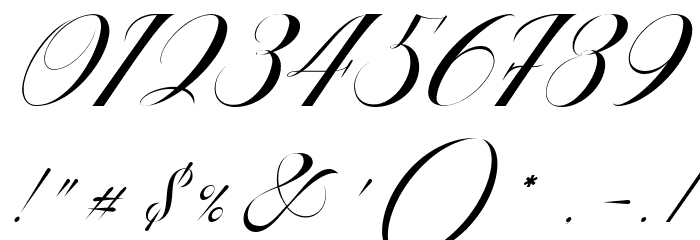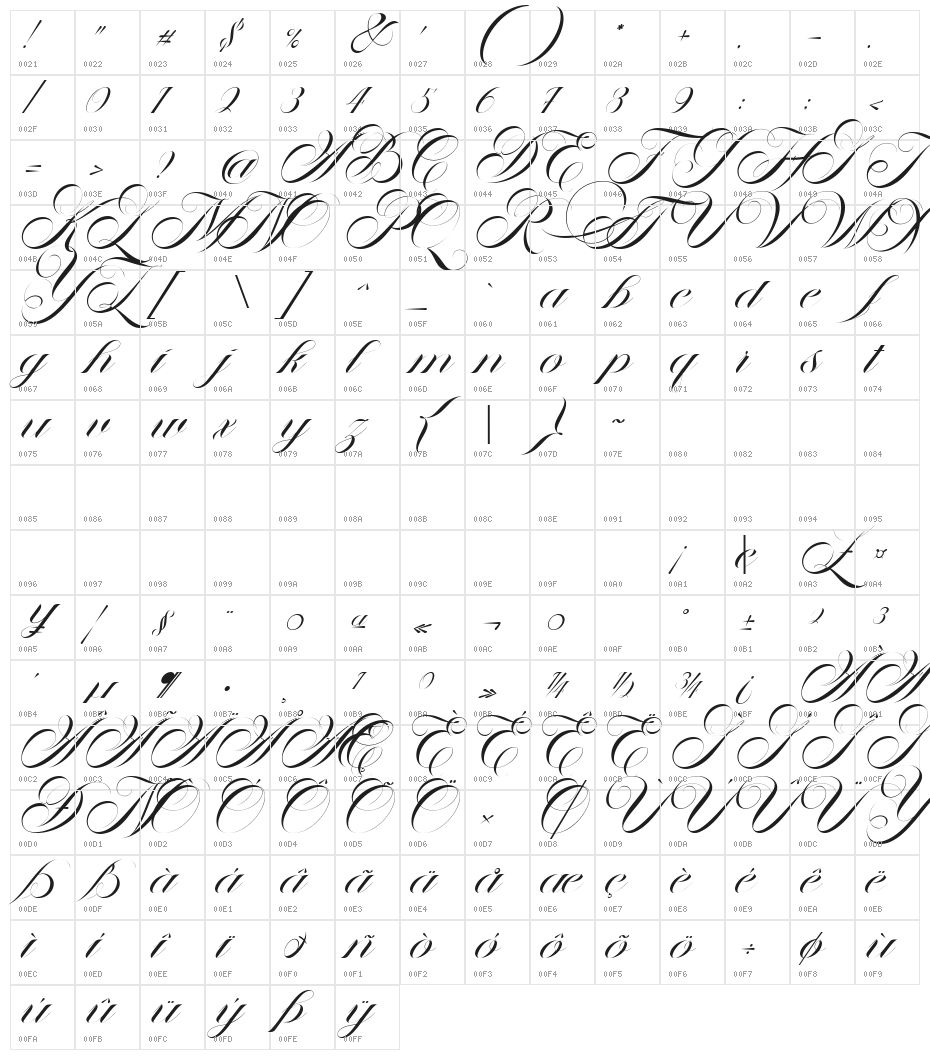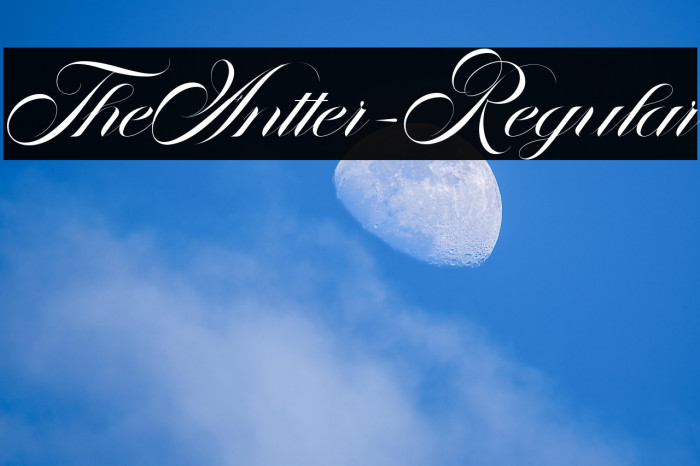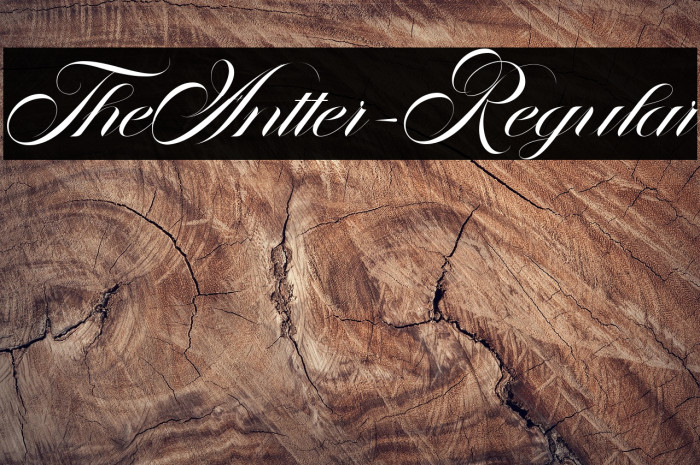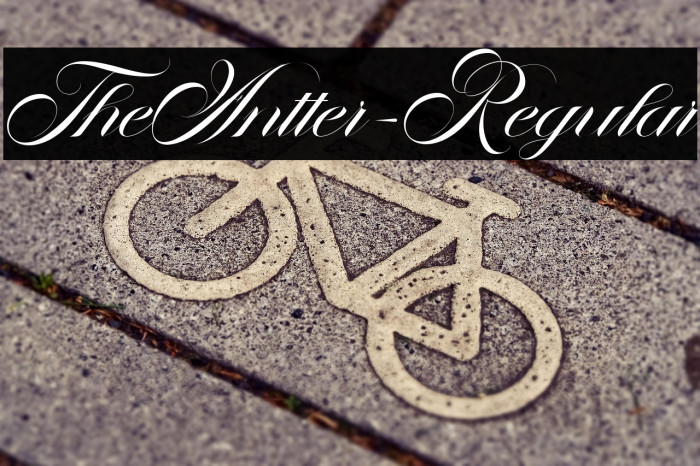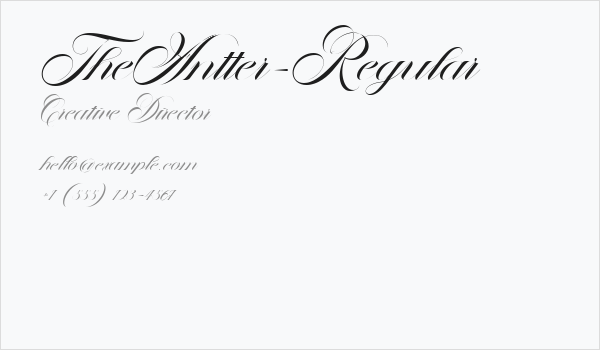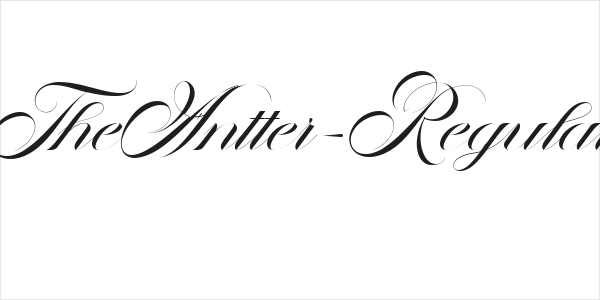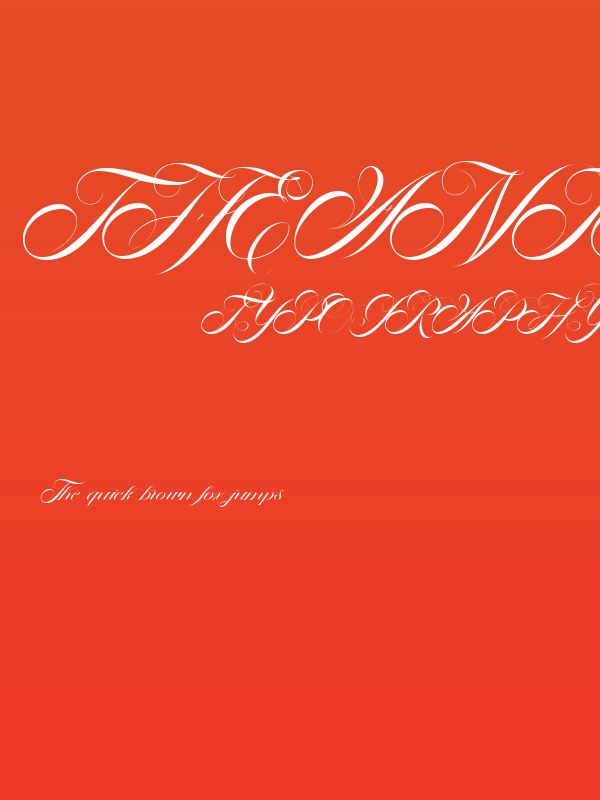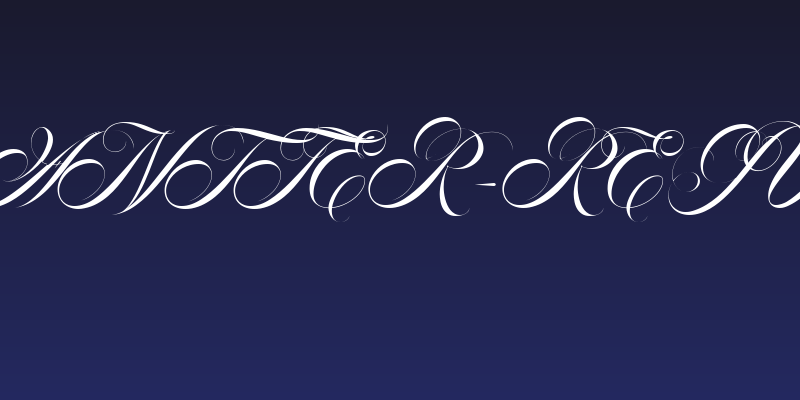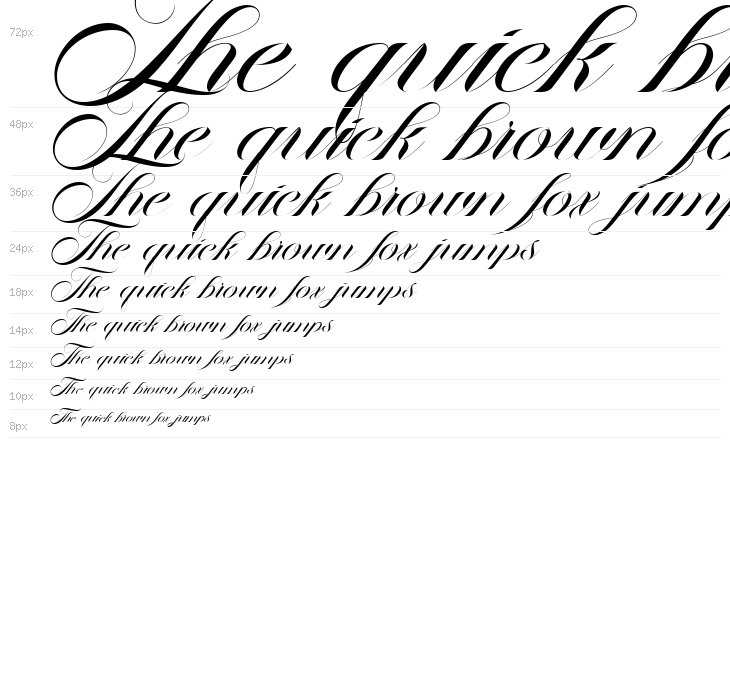
TheAntter-Regular Font
TheAntter-Regular Description
This elegant script font features flowing, interconnected characters with a sophisticated flair. The uppercase letters are adorned with intricate swashes and loops, creating a sense of movement and grace. The lowercase letters maintain a consistent slant, enhancing the font's fluidity and elegance. The numerals are equally stylish, with a refined design that complements the overall aesthetic. Special characters are thoughtfully crafted, adding to the font's versatility. The font's high contrast between thick and thin strokes adds to its dramatic and luxurious appearance, making it ideal for formal invitations, branding, and decorative purposes.
| Proposed Projects | Ideal for wedding invitations, luxury branding, decorative headings, and formal event materials. |